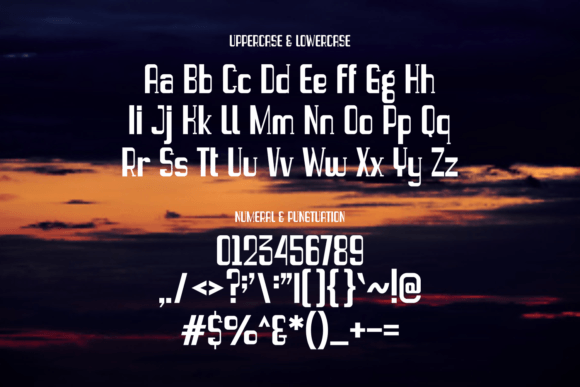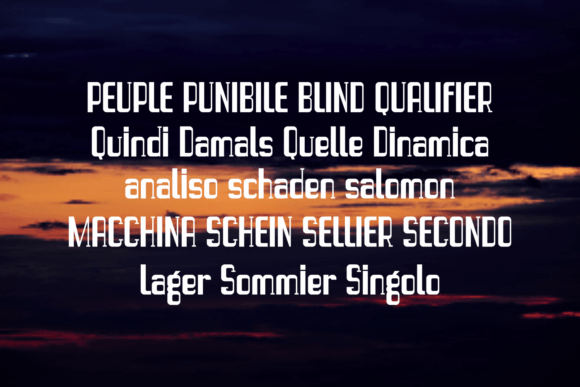
Discover the Power of Biorcas Font
Have you ever been stuck in front of your computer, staring blankly at a blank page, trying to find the perfect words to convey your creative vision? You’ve got a brilliant idea, but the words just aren’t coming together. That’s when you remember: the right font can make all the difference.
Enter Biorcas Font, a modern display font designed to elevate your creations and make your message shine. With its sleek lines and unique character, Biorcas Font is the perfect addition to any designer’s library. Whether you’re working on a logo, a poster, or a website, this font has the potential to take your design to the next level.
Biorcas Font Key Features
- Unique Characteristics: Biorcas Font features a unique blend of futuristic and organic elements, making it ideal for science fiction, technology, and futuristic designs.
- Language Support: The font includes support for a wide range of languages, including Latin, Cyrillic, and Greek alphabets, making it a versatile choice for multilingual designs.
- Style Variations: Biorcas Font offers multiple style variations, including Regular, Bold, Italic, and Bold Italic, allowing designers to add depth and nuance to their designs.
Biorcas Font Review
Overall, I found the Biorcas font to be a visually appealing and unique addition to any design project. Here’s what I liked about it:
- ✨ The unique blend of futuristic and organic elements in the font’s design creates a striking contrast that can add a lot of visual interest to a design.
- ✨ The font is highly customizable, making it suitable for a wide range of design applications, from logos to body text.
- ✨ The font’s unique features and characteristics make it a great choice for designers looking to create a memorable brand identity.
- ⚠️ The font may be too experimental or avant-garde for some designers or projects, which could make it difficult to read or understand for some audiences.
- ⚠️ The font’s unique features may not be suitable for all types of content, such as body text or technical writing, where readability is crucial.
- ⚠️ The font’s customization options can be overwhelming for designers who are new to typography or font design.
Overall, I would recommend the Biorcas font to designers who are looking for a unique and visually striking addition to their designs. However, I would caution against using it for projects where readability or legibility is a top priority.
Biorcas Font Practical Application Guide
Getting the Most Out of Biorcas Font
For best results, use Biorcas Font in a clean and simple design. Avoid mixing it with too many other fonts, as this can create visual clutter. Experiment with different font sizes and styles to create emphasis and hierarchy in your design.
Biorcas Font is ideal for creative and artistic projects, such as infographics, posters, and book covers. It’s also great for personal branding and marketing materials, such as business cards and brochures.